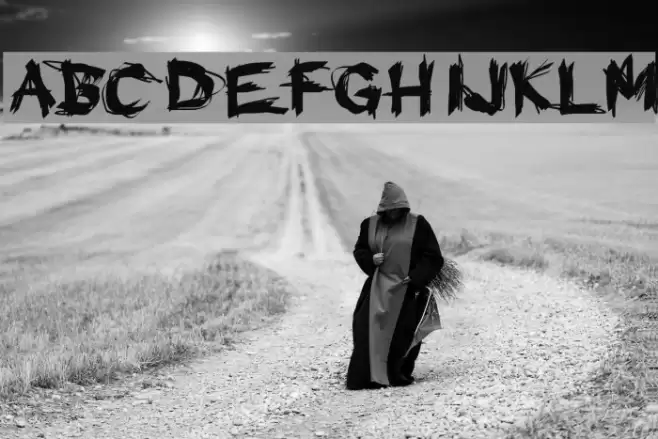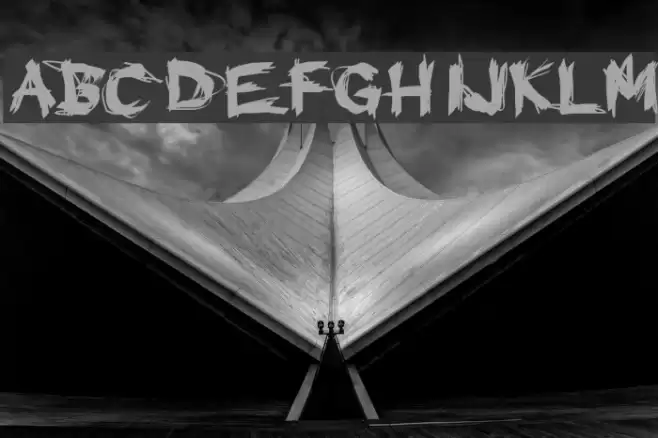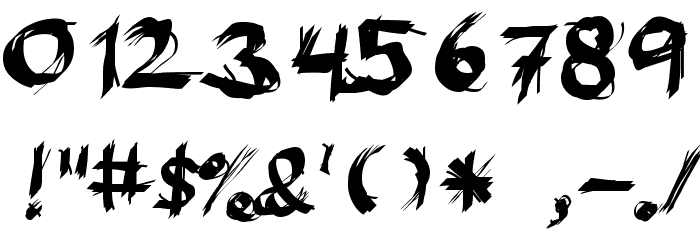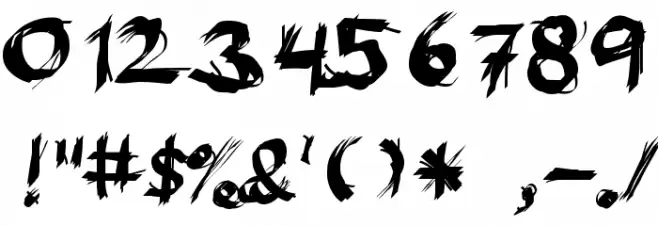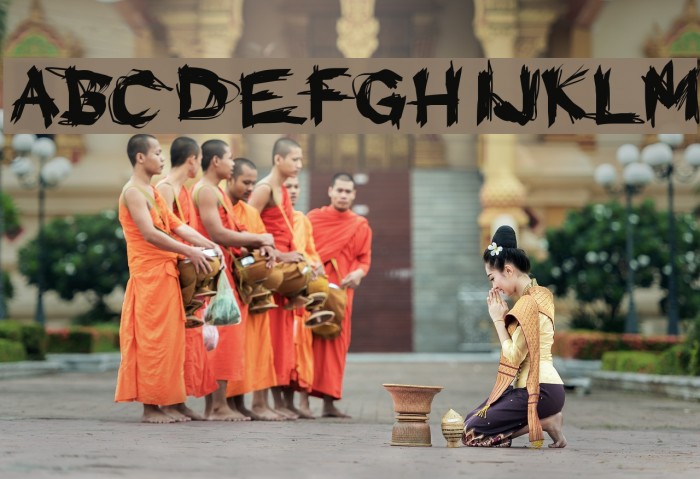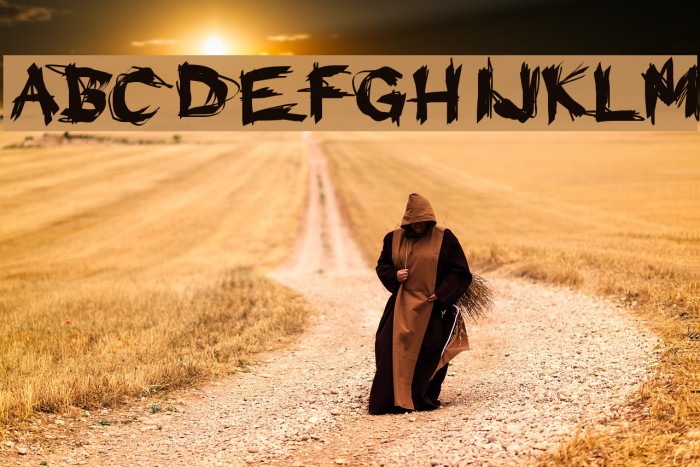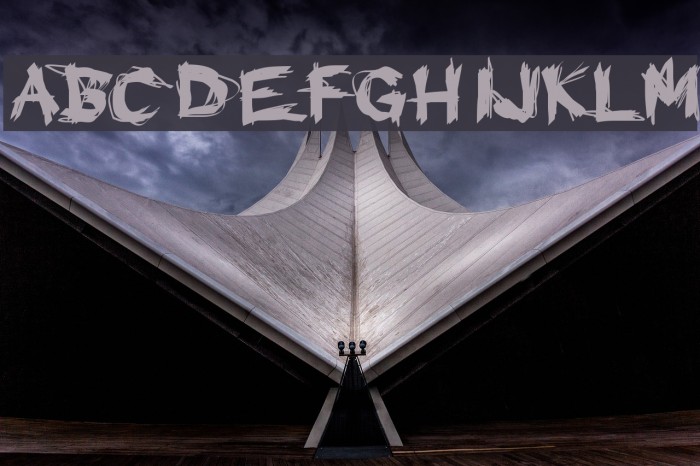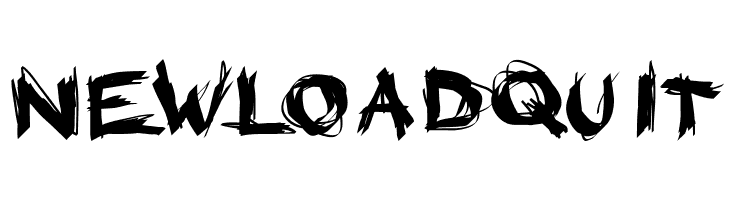
Eat your face Font
Eat your face Description
This font features a wild and chaotic design, with jagged edges and an aggressive style that resembles torn paper or scratch marks. The characters are irregular and dynamic, giving a sense of movement and energy. The uppercase and lowercase letters maintain a consistent theme of roughness, while the numbers and special characters follow suit with the same edgy aesthetic. This font is highly decorative and makes a bold statement, ideal for projects that require a dramatic and unconventional look.
A chaotic, jagged font with an aggressive and dynamic style from Decorative fonts.
- Proposed Projects: Ideal for horror-themed posters, edgy album covers, rebellious branding, or any project needing a dramatic and unconventional look.
- Character Spacing: Tight